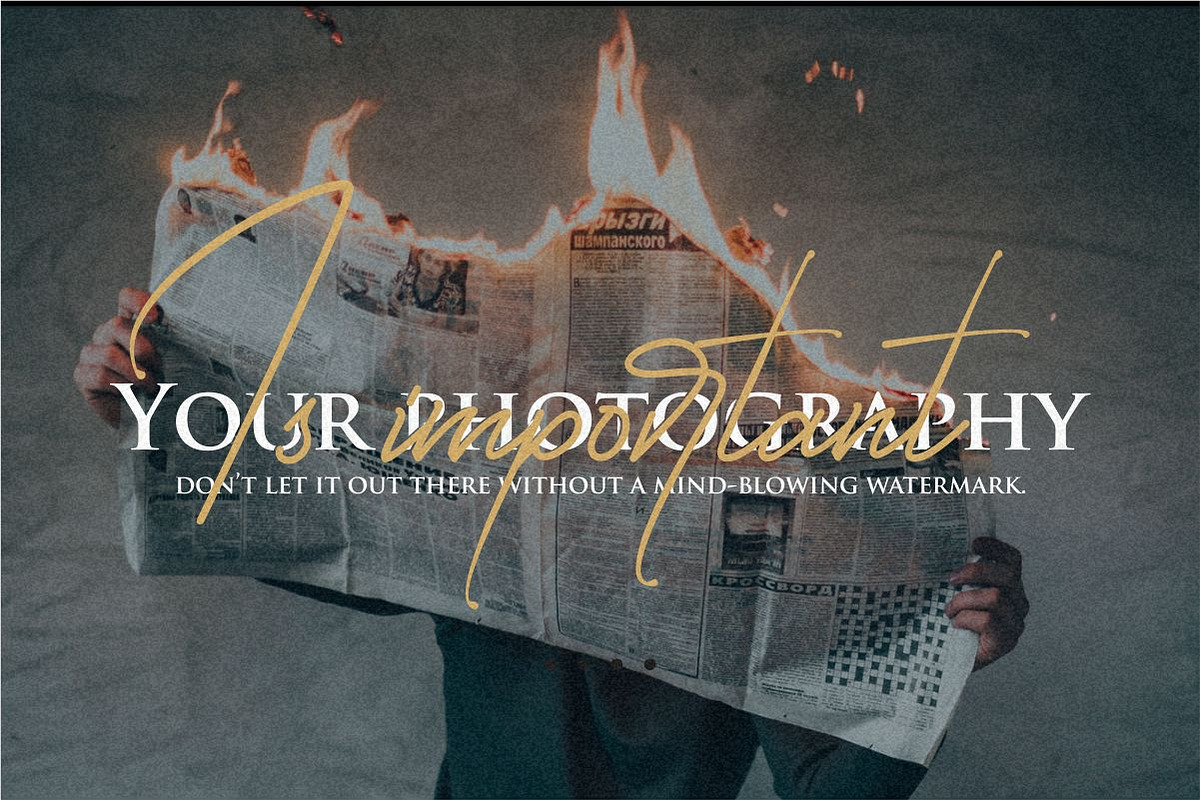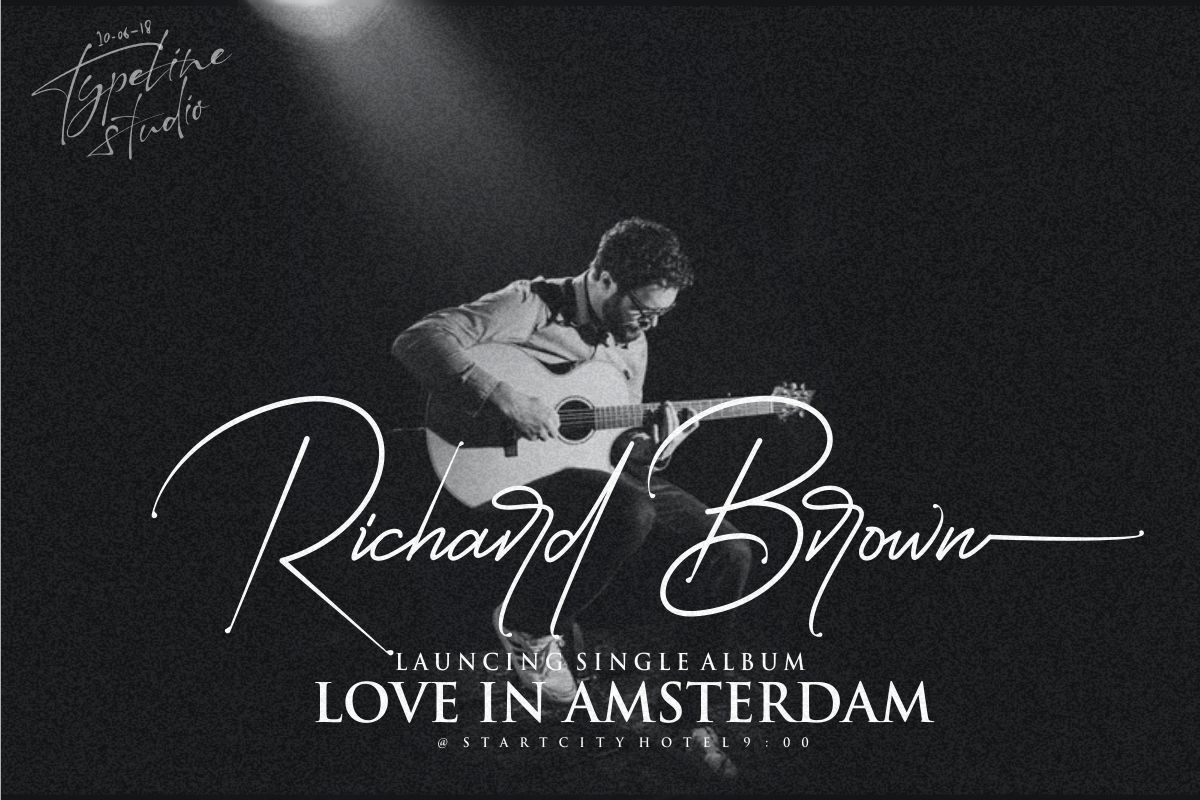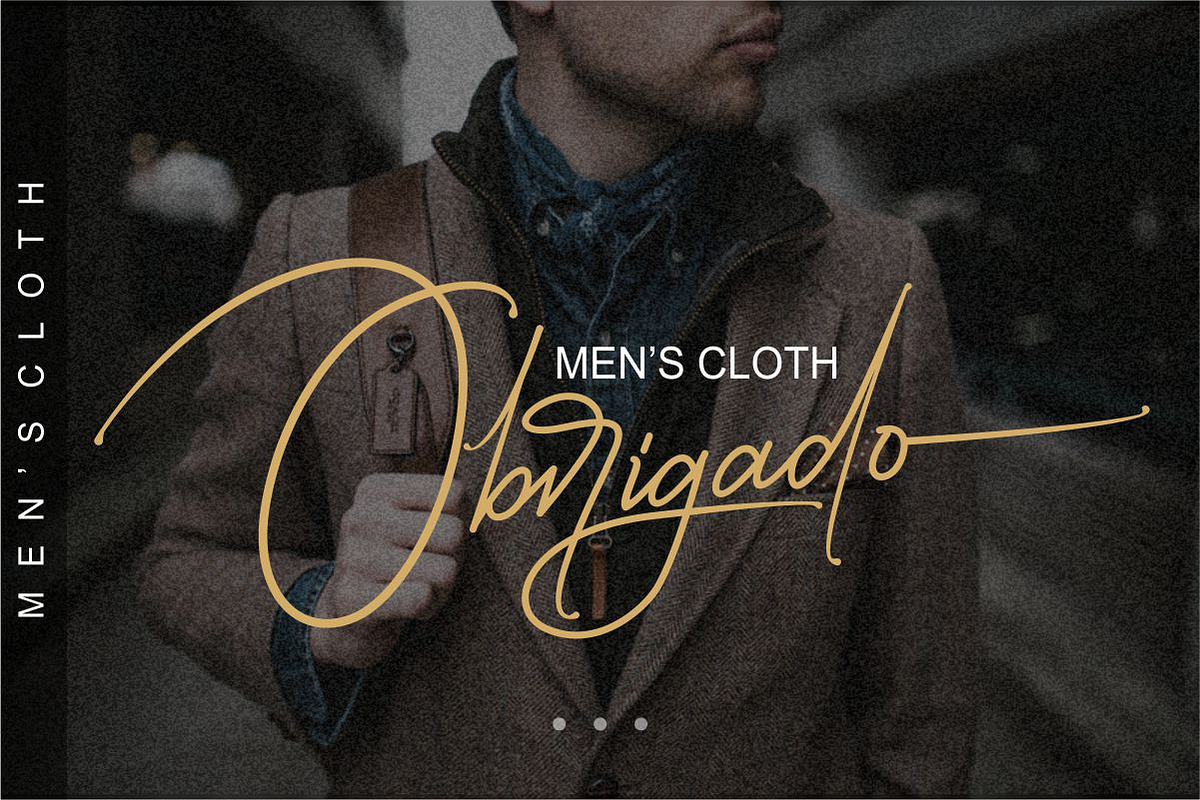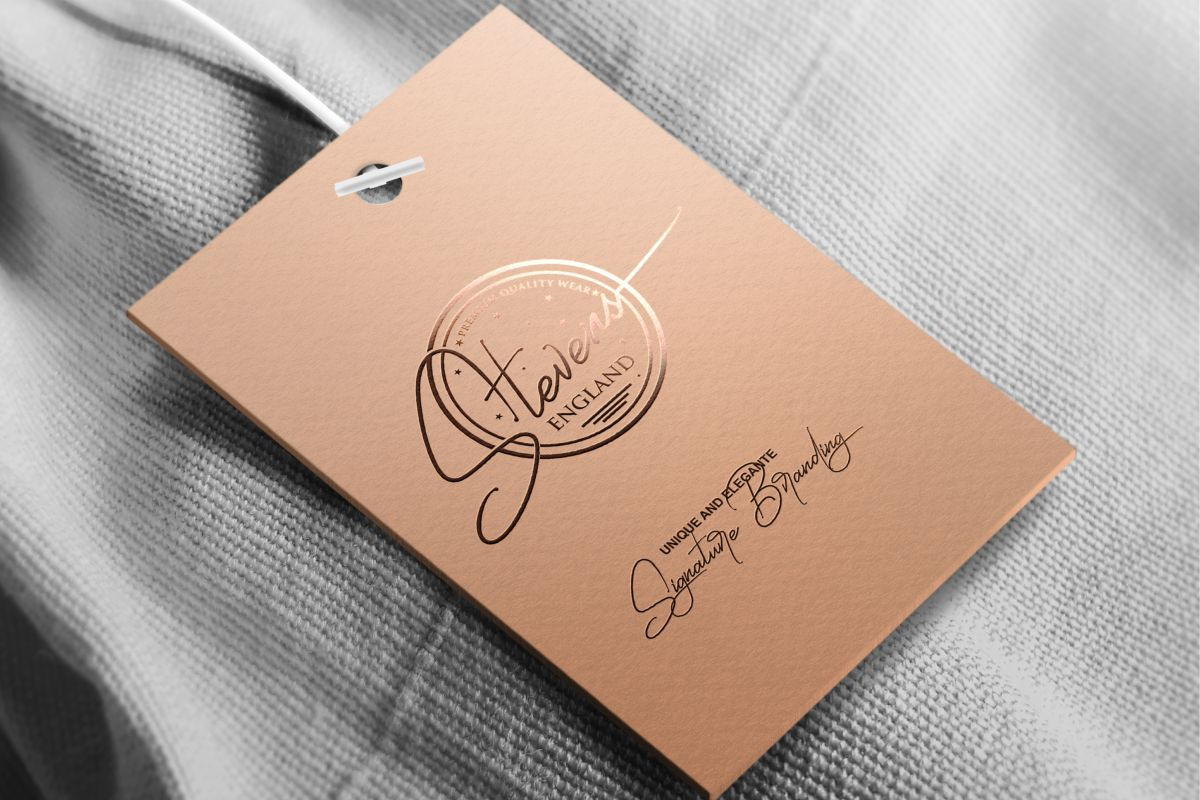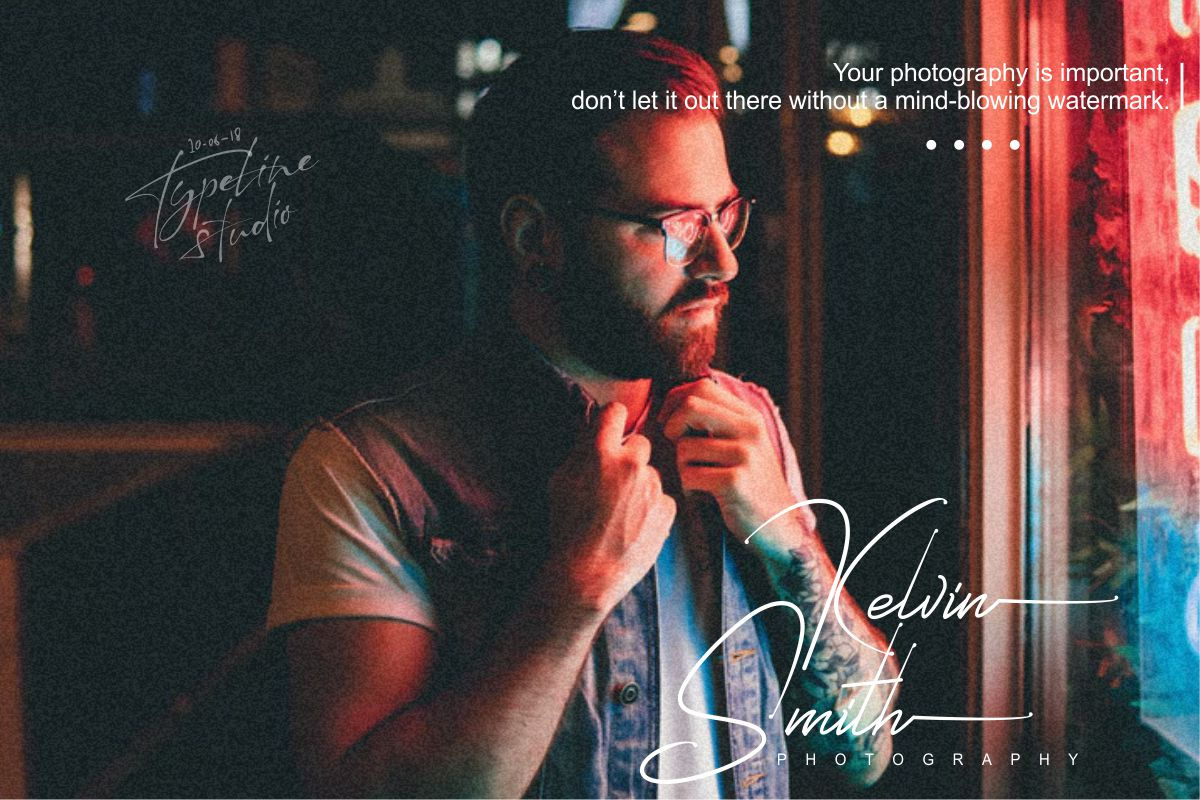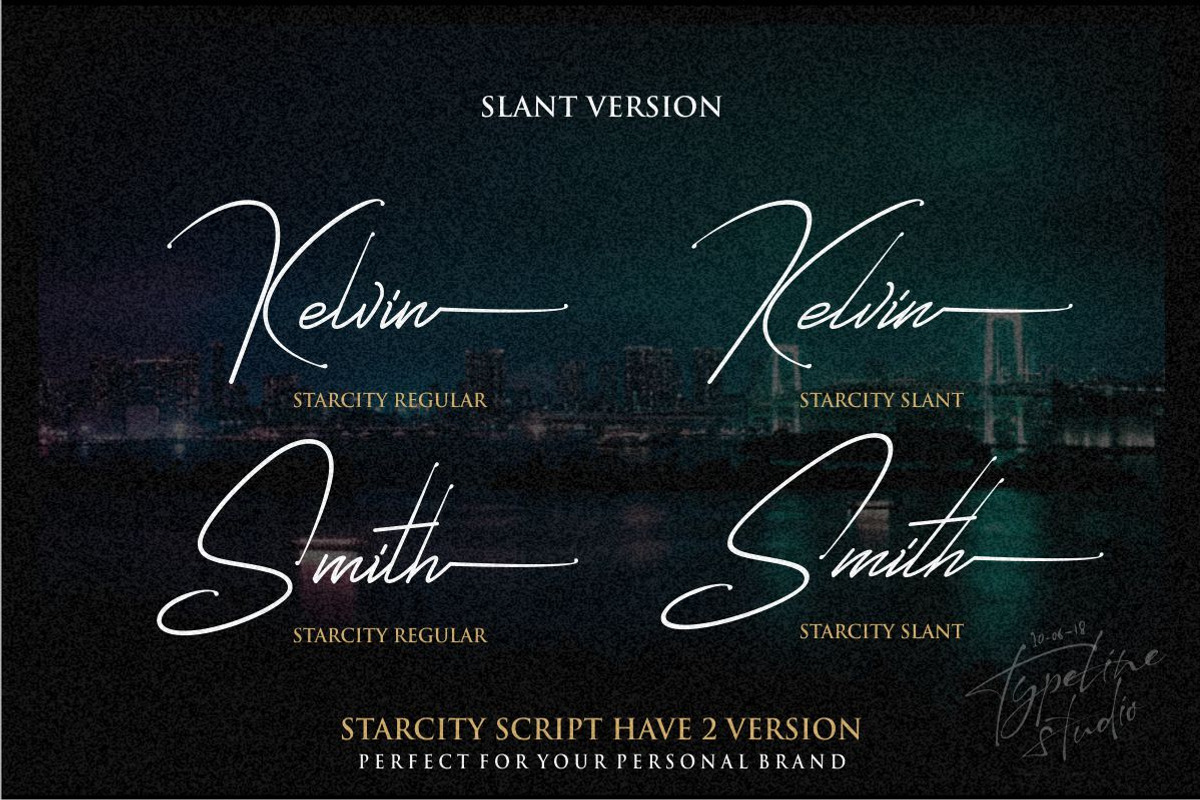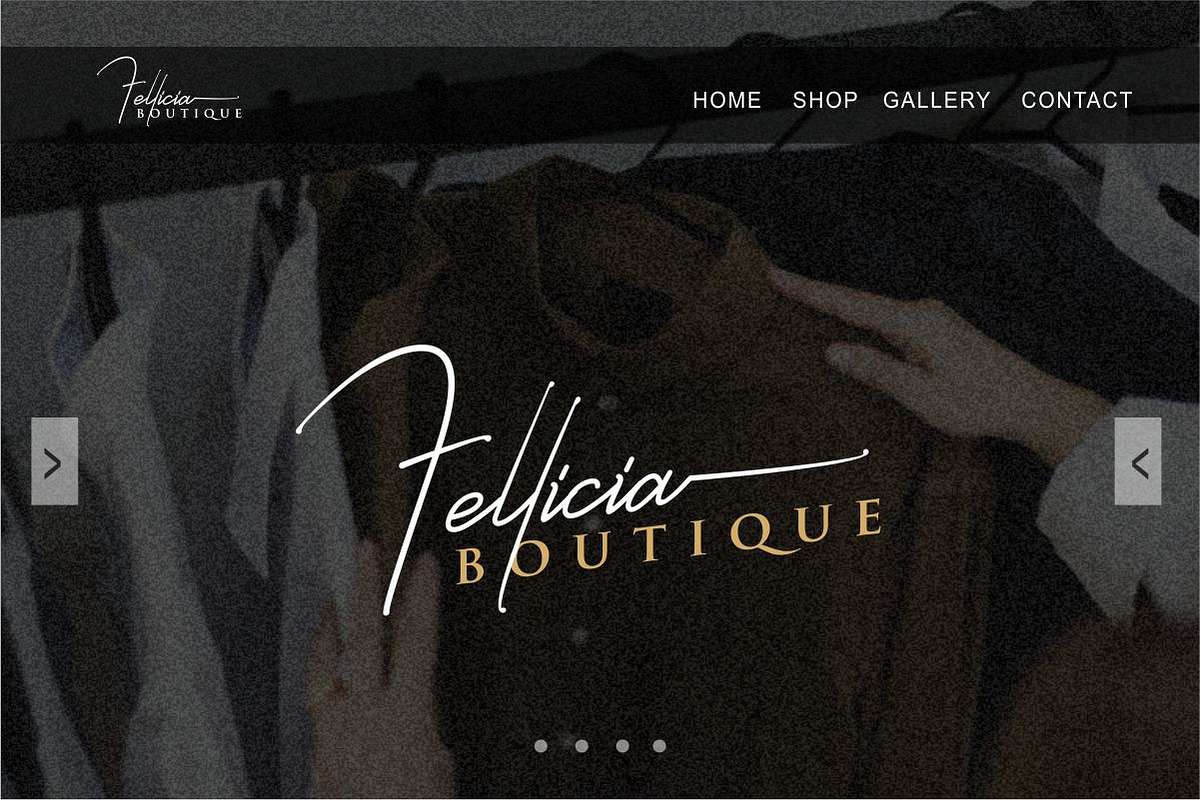
Starcity Script // Signature Font
I introduced our newest product font Starcity Script which is perfect for creating logos and watermarks for brands and photography. I made it with a sense of luxury, unique and of course also elegant
It's recommended to use it in opentype capable software because This font already uses with PUA encode,This font is very easy to use for everyone, because I make it so simple but has a very luxurious taste in it, this font has a lowercase alternative which is very similar to handwriting using a pen so it is suitable for signatures, logos, watermark photos, and many more
maybe next I will make an italic or slant version if this font is much interested and can help many things you want for a signature, branding logo, or watermark.
- Alternate Lowercase
Starcity Script // Signature Font by typeline studio fits naturally into Branding, posters, packaging, typography.